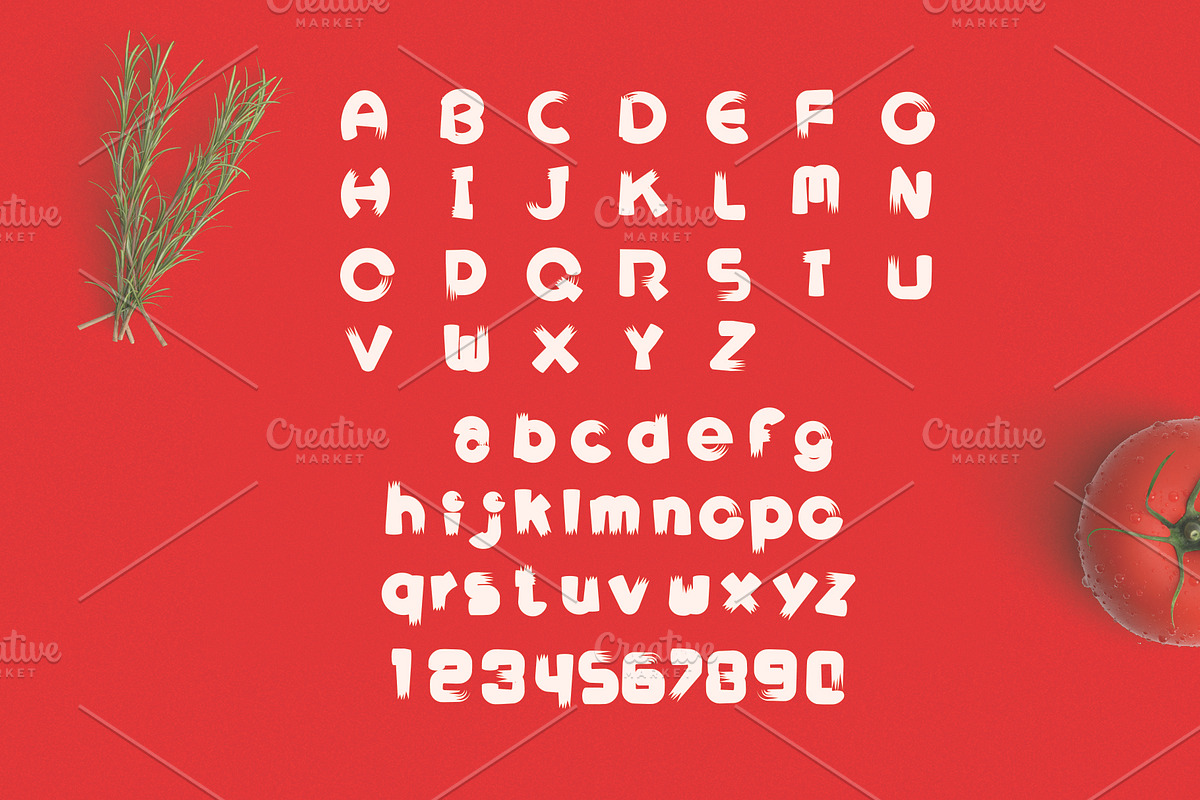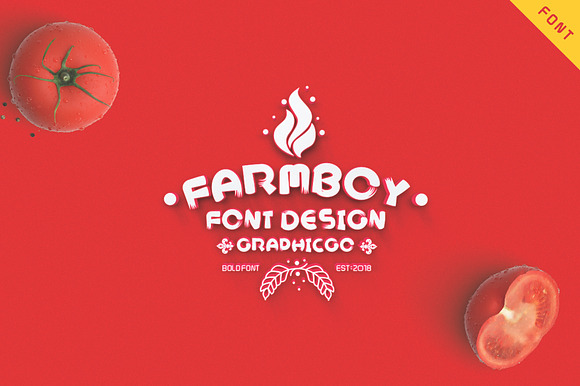
Farmboy Font
Farmboy Font is bold brush writing style (like straw brush). It 's perfect for organic products, cards, posters, wall art, branding, diy projects, greeting cards, labels, quotes, packaging, websites and much more.
Uppercase and Lowercase
Farmboy Font by Graphicgo fits naturally into Branding, posters, packaging, typography.